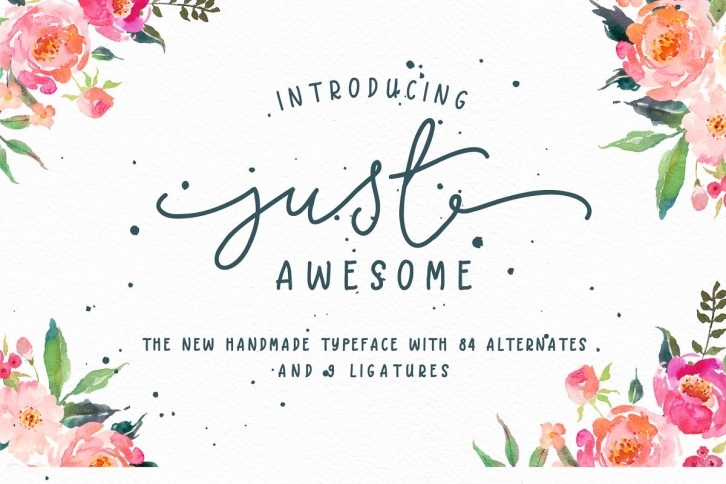
There are 2 fonts in this pack, Just Awesome Script and Just Awesome Regular you can play with them by yourself and come out new typographic designs.
Just Awesome Script is a beautiful handmade typefaces, Just Awesome Script features 84 alternate characters ,9 ligatures. including initial and terminal letters, alternates, ligatures .
Add long swashes to the beginning and end of lowercase letters,click to see preview 6 and try type "++"and "==".
This fonts can be used for various purposes.such as headings, signature, logos, wedding invitation, t-shirt, letterhead, signage, lable, news, posters, badges etc.